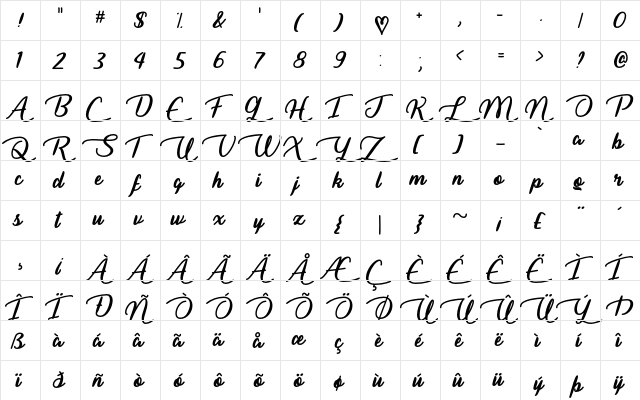
Liar Script Regular
| Foundry | Misti's Fonts |
| Designer | Misti's Fonts |
Design Context for Liar Script Typeface
Liar Script brings a calligraphic fluidity to the page — its connecting strokes and expressive curves give it an unmistakably human quality.
Font Pairing: Combine Liar Script with a simple geometric sans for maximum contrast — the tension between flowing curves and clean structure is a classic typographic pairing.
Pro Tip: Pair Liar Script with a clean sans-serif for supporting text. The contrast between fluid script and geometric structure creates an elegant typographic hierarchy.